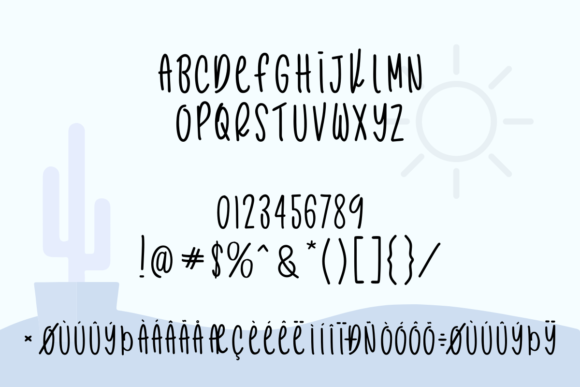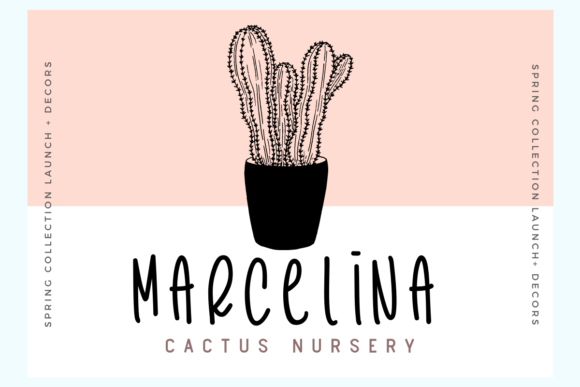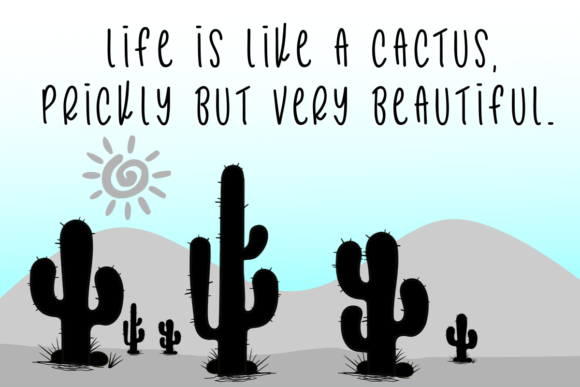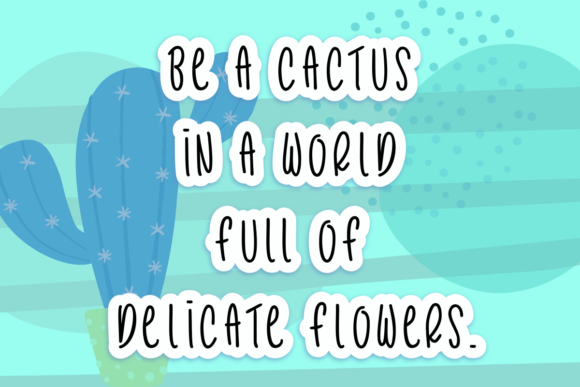
Cactus Story Font: The Perfect Addition to Your Design Collection
Are you a designer or crafter looking for a unique and quirky font to add a personal touch to your projects? Look no further than Cactus Story Font! This adorable handwritten font is sure to bring a smile to your face and make your designs stand out from the crowd.
What is Cactus Story Font?
Cactus Story Font is a cute and quirky handwritten font that is perfect for a wide range of design projects. Its natural and unique style makes it incredibly fitting for designs that require a personal touch. Whether you’re creating a logo, branding materials, or craft projects, Cactus Story Font is sure to add a touch of whimsy and charm.
Characteristics of Cactus Story Font
So, what makes Cactus Story Font so special? Here are just a few of its key characteristics:
- Handwritten style: Cactus Story Font has a beautiful, handwritten style that gives it a personal and unique feel.
- Cute and quirky: This font is undeniably cute and quirky, making it perfect for designs that require a touch of whimsy.
- Natural look: The font has a natural, effortless look that makes it perfect for designs that require a organic feel.
- Versatile: Cactus Story Font is incredibly versatile and can be used for a wide range of design projects, from logos and branding materials to craft projects and more.
Uses for Cactus Story Font
So, what can you use Cactus Story Font for? The possibilities are endless! Here are just a few ideas to get you started:
- Logo design: Cactus Story Font is perfect for creating unique and memorable logos that will help your brand stand out.
- Branding materials: Use Cactus Story Font to create consistent branding across all of your marketing materials, from business cards to brochures.
- Craft projects: This font is perfect for craft projects, such as making cards, gift tags, and other handmade items.
- Social media graphics: Use Cactus Story Font to create eye-catching social media graphics that will help your brand stand out.
Why Choose Cactus Story Font?
So, why should you choose Cactus Story Font for your design projects? Here are just a few reasons:
- Unique style: Cactus Story Font has a unique and quirky style that will help your designs stand out from the crowd.
- Easy to read: Despite its playful style, Cactus Story Font is easy to read, making it perfect for designs that require a clear and concise message.
- Customizable: This font is highly customizable, allowing you to adjust the size, color, and style to fit your design needs.
Tips for Using Cactus Story Font
Here are a few tips for using Cactus Story Font in your design projects:
- Pair with bold fonts: Cactus Story Font pairs well with bold fonts, which can help to create a striking contrast.
- Use in combination with images: This font looks great in combination with images, particularly those with a natural or whimsical theme.
- Experiment with colors: Cactus Story Font looks great in a range of colors, so don’t be afraid to experiment and find the perfect hue for your design.
Cactus Story Font is a unique and quirky handwritten font that is perfect for designers and crafters looking to add a personal touch to their projects. Its natural and unique style makes it incredibly fitting for a wide range of designs, from logos and branding materials to craft projects and social media graphics. With its ease of use, customizability, and versatility, Cactus Story Font is sure to become a favorite in your design collection.